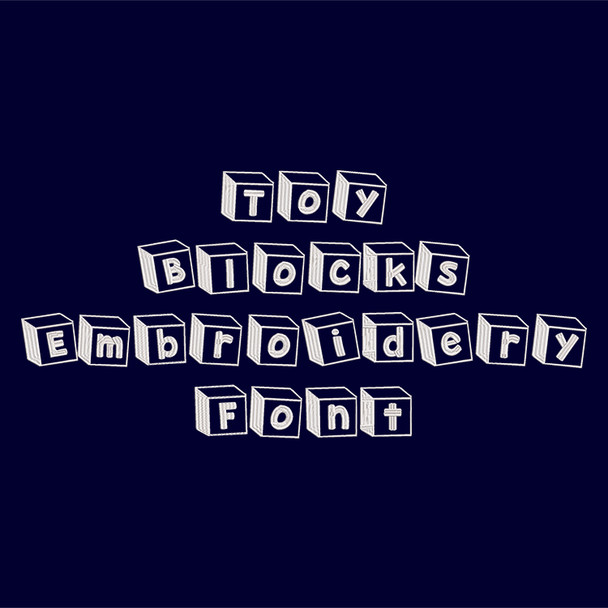
Machine Embroidery Font - Toy Blocks Font
Title: Toy Blocks Machine Embroidery Font
This Toy Blocks font is perfect for personalizing clothes, bags, towels and linens!